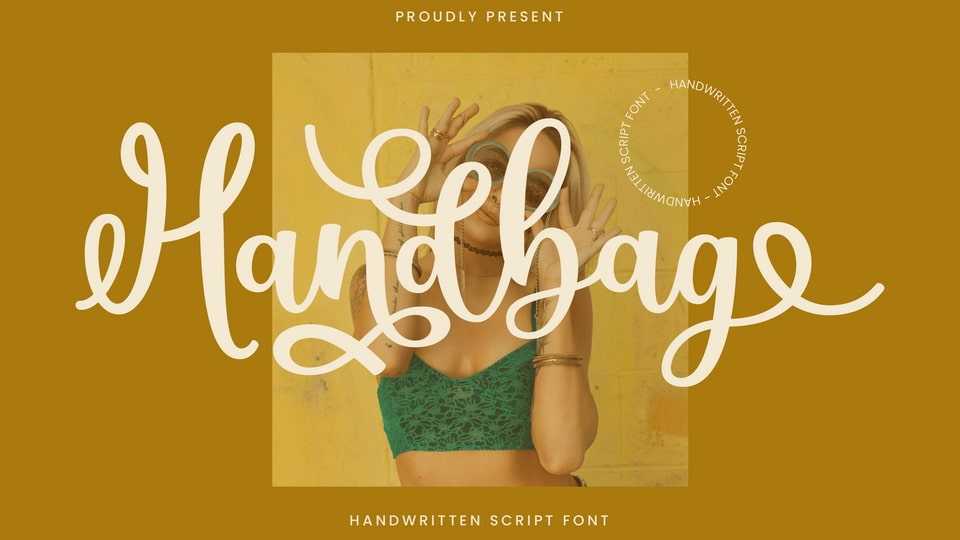
Download Handbag font, a delicate, elegant, and flowing handwritten typeface. Handbag font has beautiful and well-balanced characters, and as a result, it matches a wide pool of designs.